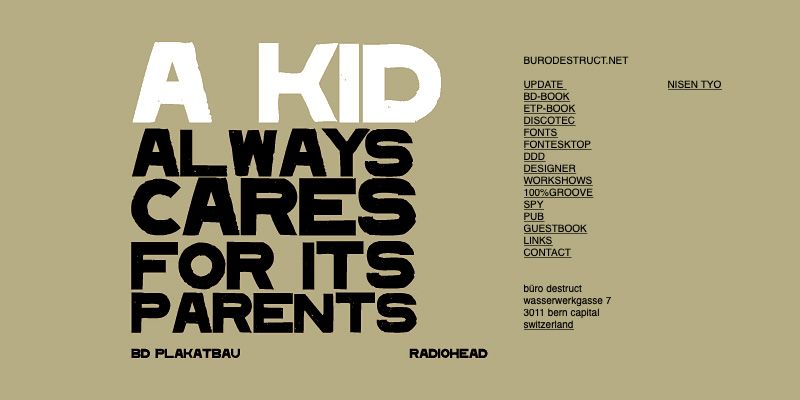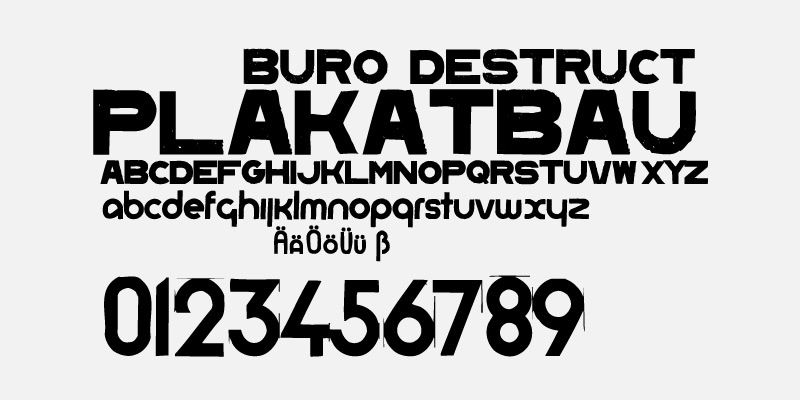
BD Plakatbau is a grunge display font used on many famous Pop & Rock album titles. Designed by Lopetz in 1995.
Buro Destruct
Swiss Graphic Design Studio «Büro Destruct» was founded 1994 in Bern by «HGB Fideljus» Berger & Lorenz «Lopetz» Gianfreda. In 1995, Marc «MB» Brunner & Heinz «H1» Reber joined the current group formation. Over the next few years Büro Destruct grew into an internationally acclaimed multidisciplinary design studio. Since 1995, Büro Destruct is releasing its fonts on their type foundry called «Typedifferent.com». As the name «Typedifferent» implies - the Büro Destruct fonts are mainly display typefaces with unique lettering characteristics. They appear on numerous record sleeves, in magazines, movie and TV titles, on fashion-prints and websites.